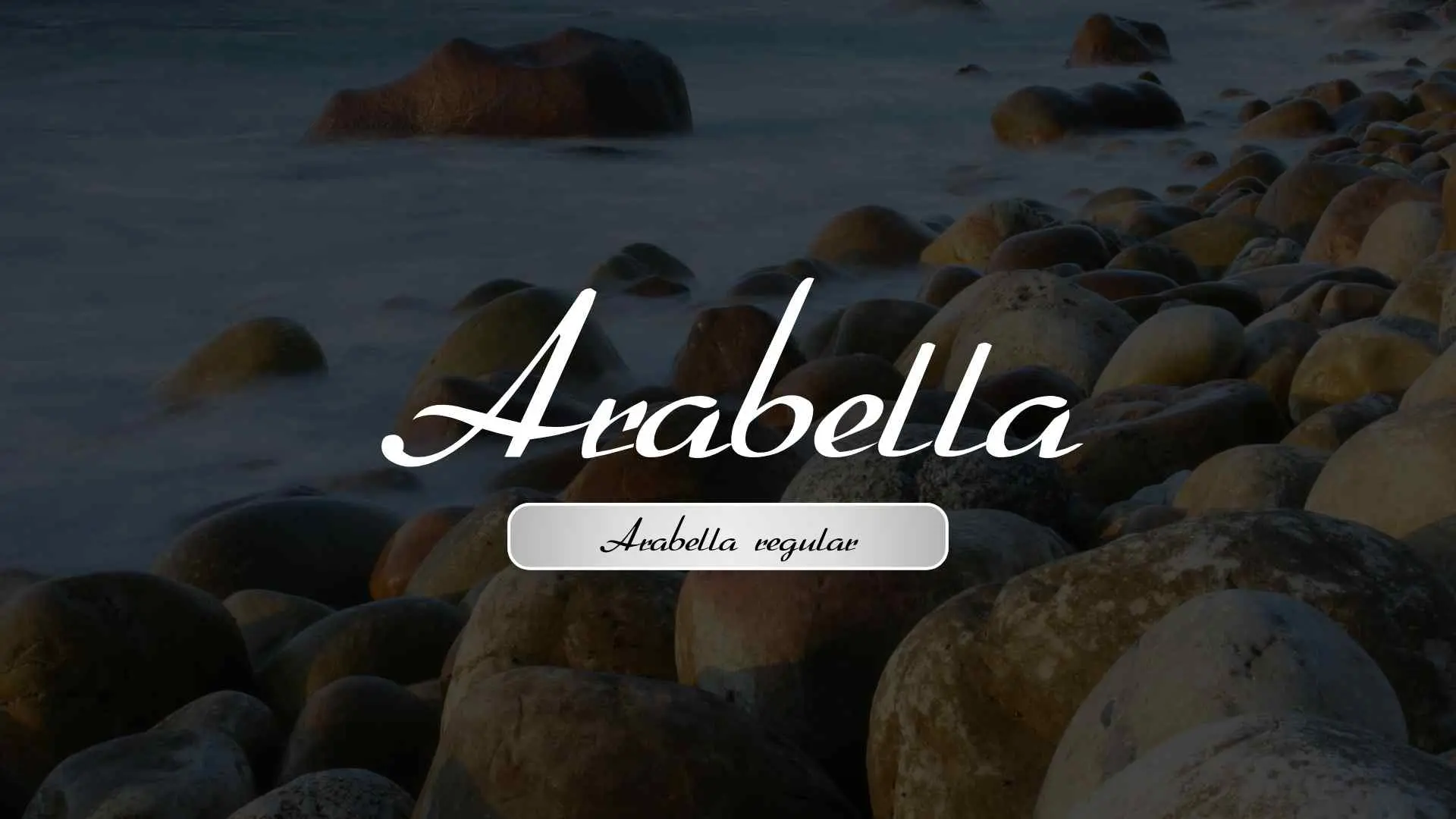
The font Arabella Regular, designed by Bro Luthfi, falls under the Script, Serif category & Arabella font family. Its smooth, flowing letterforms make it a versatile choice for projects that require both elegance and readability. Arabella is particularly well-suited for Wedding Invitations and Stationery, Greeting Cards and Invitations, Branding and Logos and Crafting. With its balance of simplicity and decorative appeal, this font brings a polished touch to both personal and professional designs.